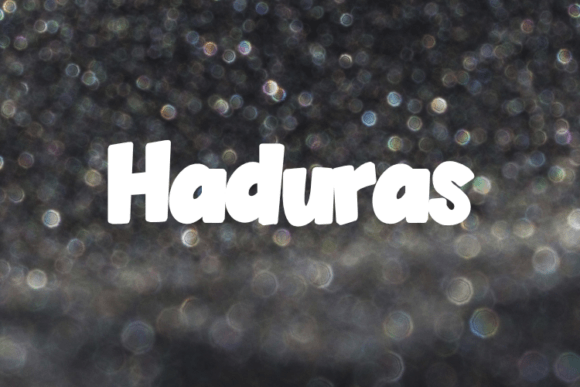
Unleashing Your Design Potential with the Haduras Font
Have you ever been in a creative rut, staring blankly at your screen, trying to conjure up the perfect font to match your design vision? It’s a feeling we’ve all been there – but what if you had a font that could transport your designs to new heights? Welcome to the world of Haduras Font, a game-changing tool that’s about to revolutionize the way you approach fashion design.
Haduras Font is more than just a font – it’s a comprehensive solution designed to elevate your designs and make them stand out in a crowded market. With its universal compatibility and OTF file provision, you can seamlessly integrate it into your workflow, whether you’re working on chic clothing or trendy t-shirts. This font is a must-have for designers who want to make a lasting impression and take their design portfolios to the next level.
Honduras Font Key Features
- Font Family: Honduras Font is a sans-serif typeface designed specifically for digital use.
- Font Size: Honduras Font is available in 6 weights, ranging from Thin to Extra Bold, providing a versatile range of font sizes.
- Unique Characteristics: Honduras Font features a clean and modern design with subtle rounded edges and a friendly feel, making it suitable for body text and display headings.
- Language Support: Honduras Font supports a wide range of languages, including Latin-based languages, making it a great choice for multilingual projects.
Designer Review: Haduras Font
Overall, I think Haduras is a solid choice for anyone looking for a clean and modern sans-serif font. Here are some of its strengths: ✨
- Excellent legibility: Haduras is incredibly easy to read, even at small font sizes.
- High x-height: This makes it perfect for body text and longer passages of text.
- Customizable: You can easily adjust the font’s weight and spacing to suit your design needs.
However, like any font, Haduras has its limitations: ⚠️
- Limited expressiveness: Haduras is a very straightforward font, which can make it less suitable for creative or artistic projects.
- No bold or italic options: While you can adjust the weight, it’s not the same as having a true bold or italic version of the font.
- Not ideal for headlines: While Haduras works well for body text, it may not be the best choice for headlines or titles due to its lack of flair.
Overall, I think Haduras is a great choice for anyone looking for a clean and modern font for body text. While it may not be the most exciting font, it’s reliable and easy to use. Just be aware of its limitations and adjust your design accordingly.
Haduras Font: A Practical Application Guide
Getting the Most Out of Haduras Font
To get the most out of Haduras Font, use it for titles, headings, and emphasis. It’s also great for creating a unique and eye-catching design. Experiment with different font sizes and styles to achieve the desired effect.
Haduras Font is commonly used for:
– Titles and headings
– Emphasis and highlight
– Unique and eye-catching designs
– Creative projects and presentations
Is Haduras Font compatible with variable font technologies?
Yes, the Haduras Font is designed to be compatible with variable font technologies, including OpenType Variable Fonts (OTVF) and Web Open Font Format (WOFF2) with variable font support. This allows for advanced typographic features and customization options in modern design applications.